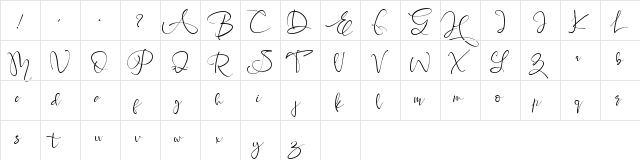
Brigitta Regular
| Designer | Letterara 2019 |
Design Context for Brigitta Typeface
Brigitta is a composed and adaptable typeface that performs quietly and consistently across a wide range of design contexts.